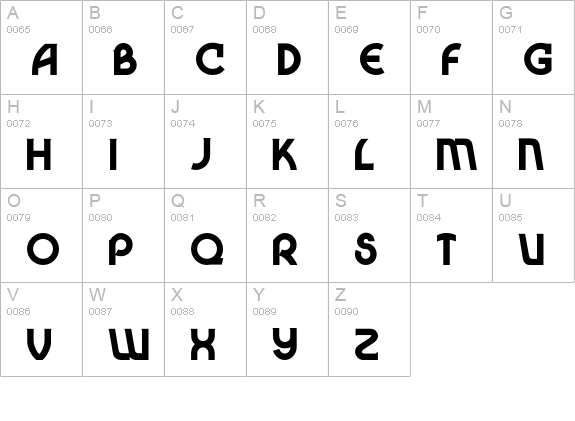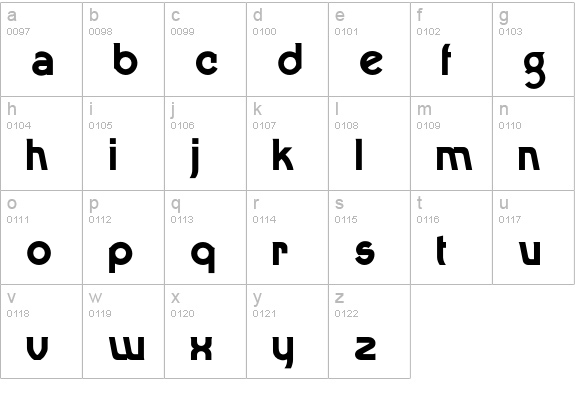
DingalingMedium is a whimsical and versatile font that adds a touch of fun and playfulness to any project. With its unique design and quirky charm, this font is perfect for creating eye-catching headlines, invitations, and more. The rounded edges and bold strokes of DingalingMedium make it easy to read while still maintaining a sense of personality and character. The best part? DingalingMedium is available for free download at FontsMarket.com! Whether you're a designer looking to add a creative touch to your work or simply someone who appreciates a good font, DingalingMedium is sure to delight. Download it today and let your imagination run wild with this playful and free-spirited font.